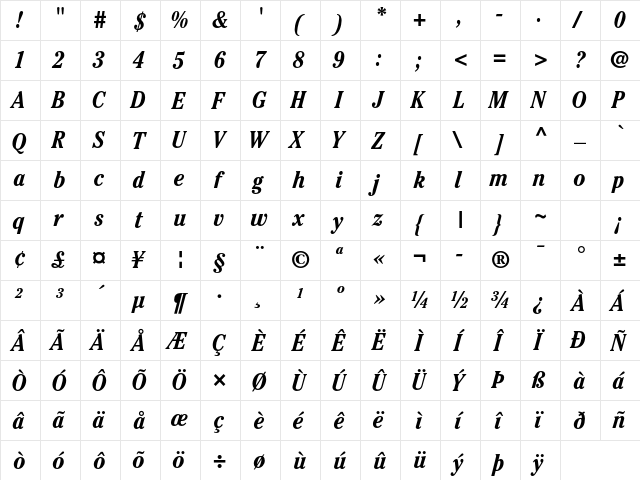
ITC Cheltenham Std Bold Condensed Italic Font Preview
| Designer | Tony Stan |
Design Context for ITC Cheltenham Std Typeface
ITC Cheltenham Std is a composed and adaptable typeface that performs quietly and consistently across a wide range of design contexts. Its italic angle brings a sense of urgency and motion to the letterforms. The heavy weight commands attention and anchors typographic hierarchies. Its narrow stance lets it pack a punch even in space-constrained designs.
Pro Tip: Try ITC Cheltenham Std for annotation and caption copy alongside an upright companion — the contrast in angle creates a dynamic but ordered typographic system.